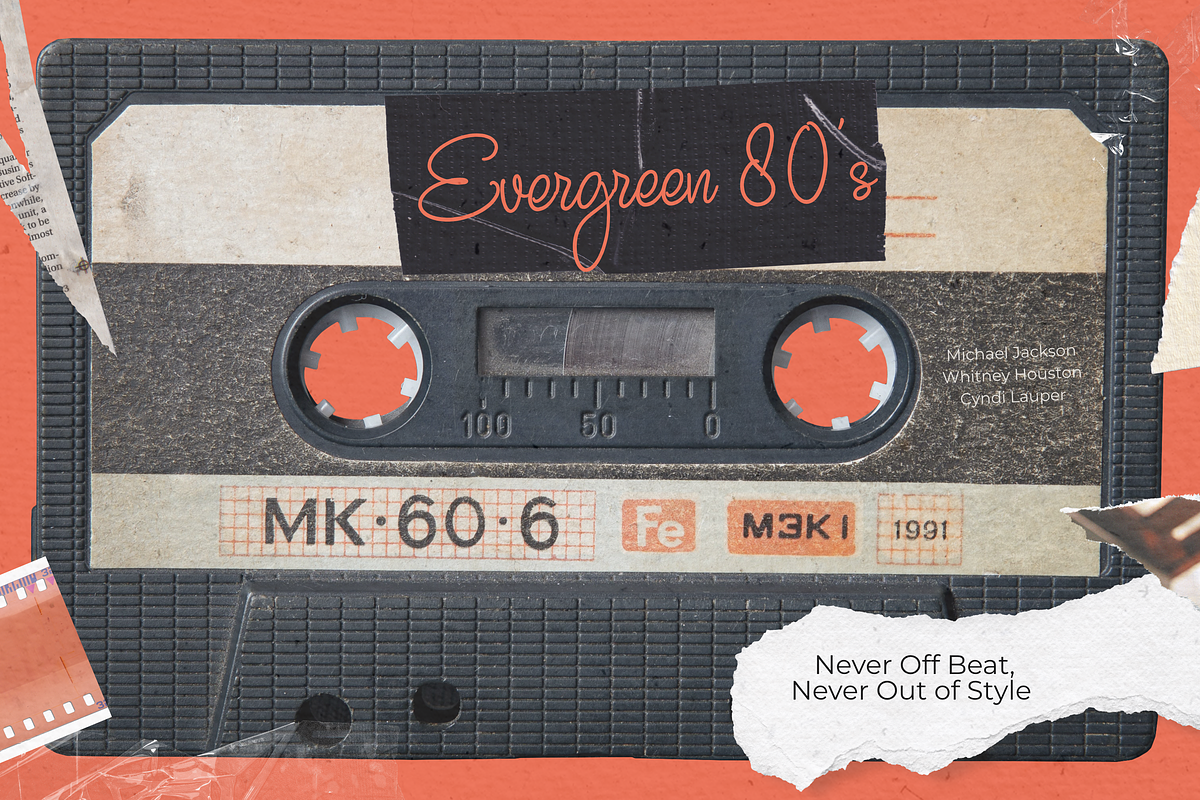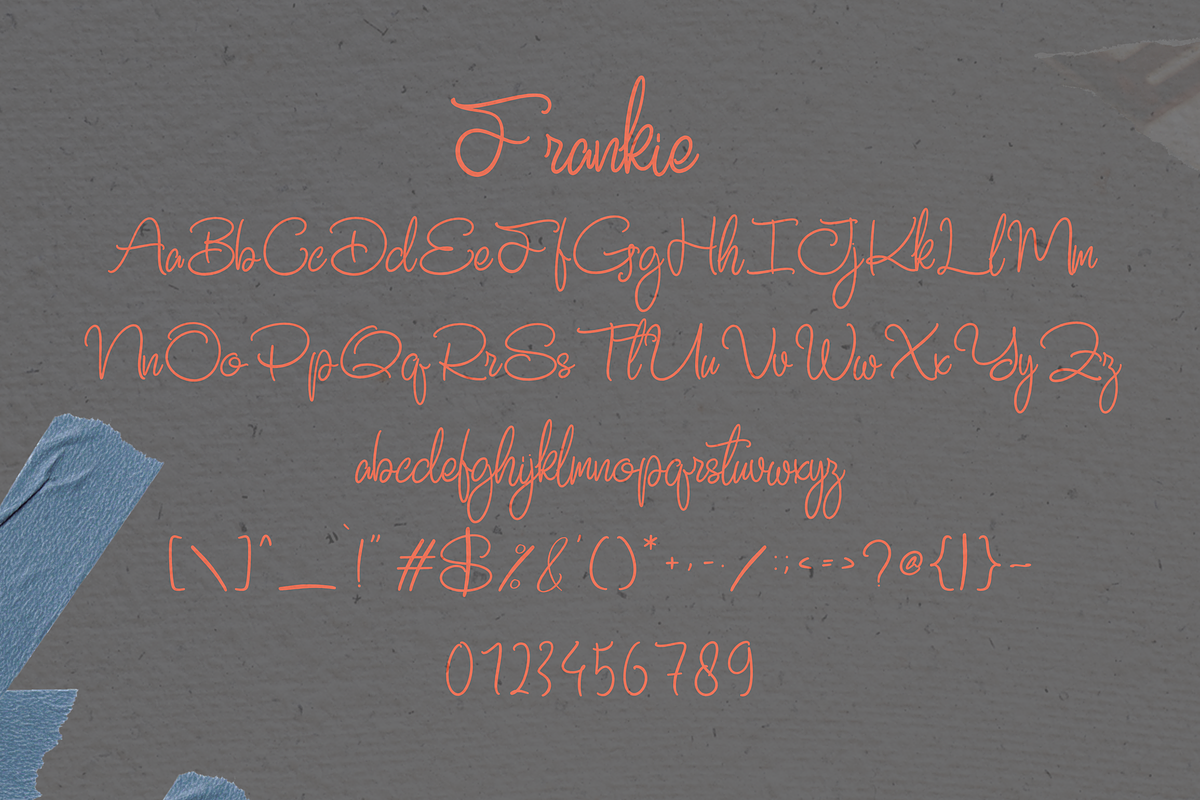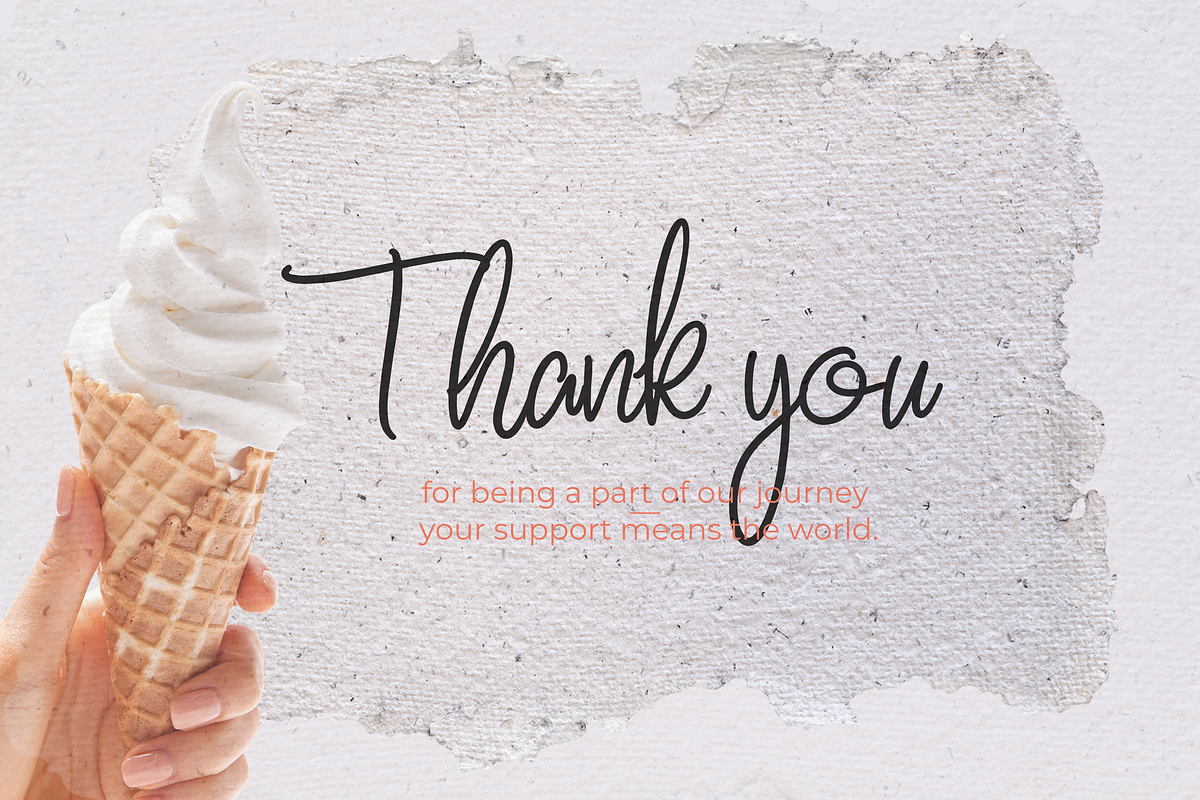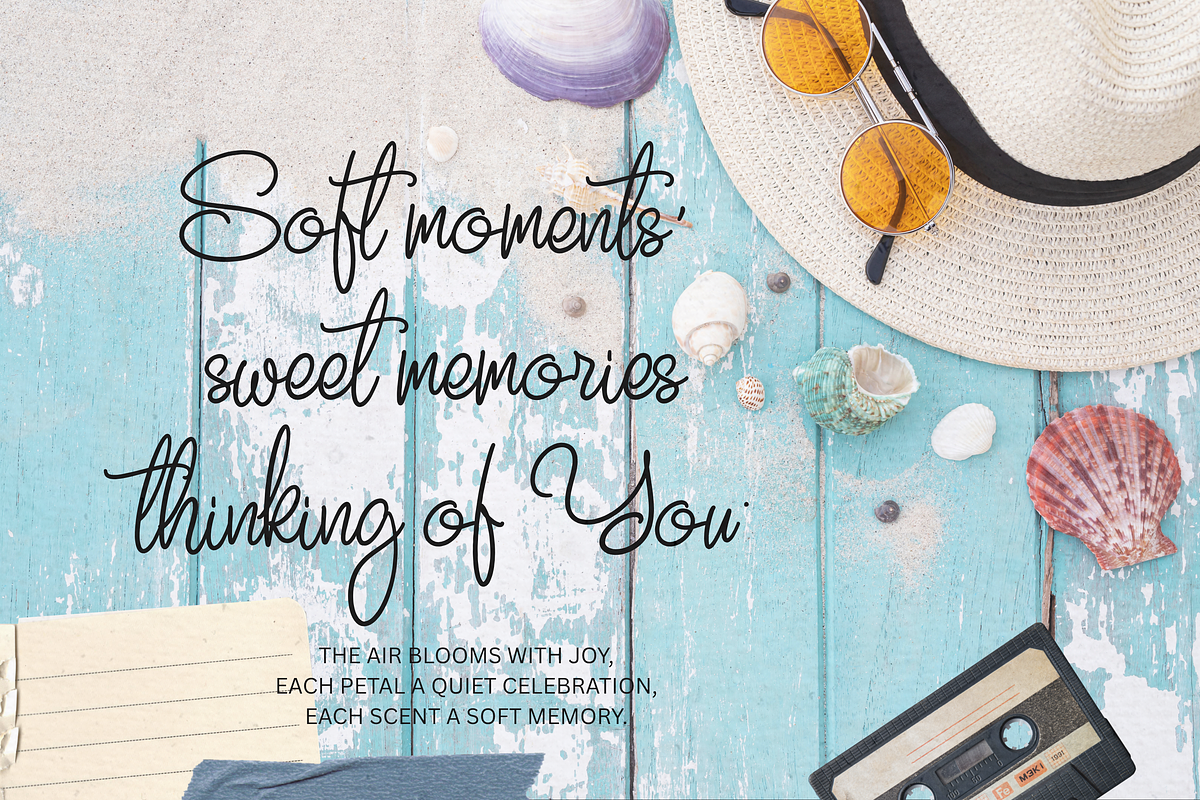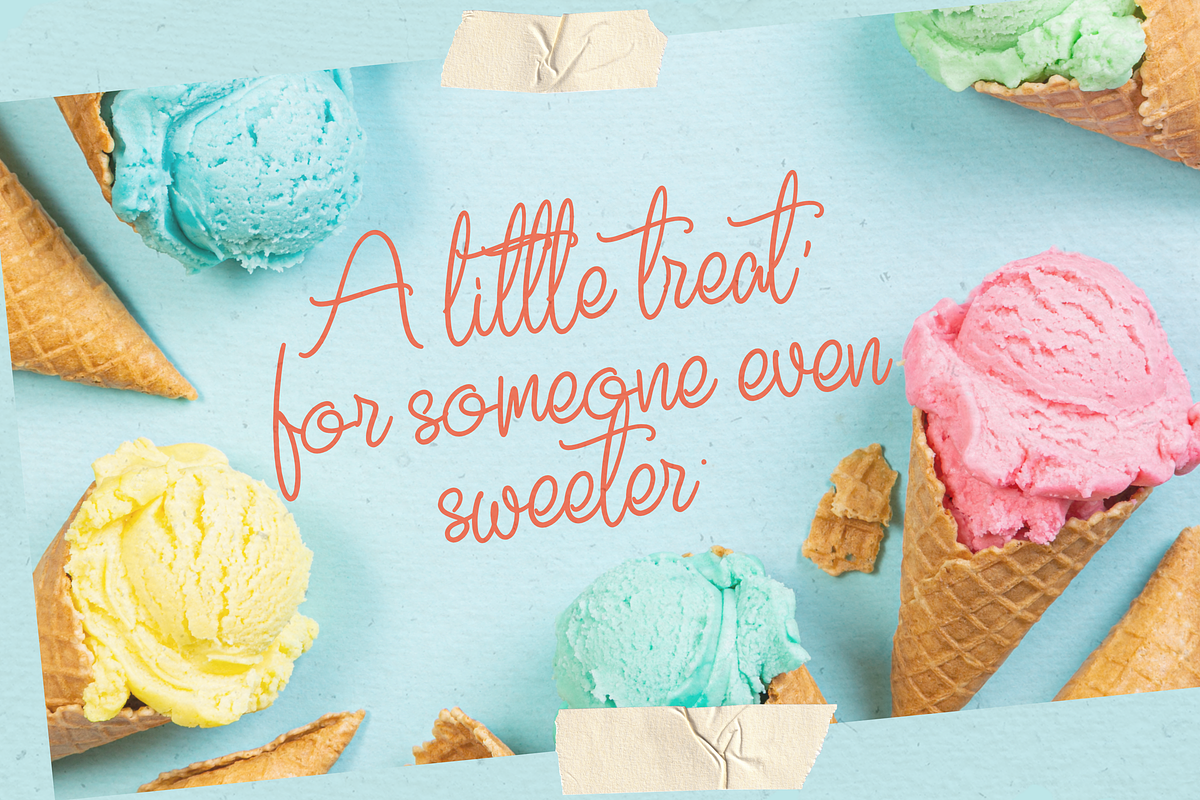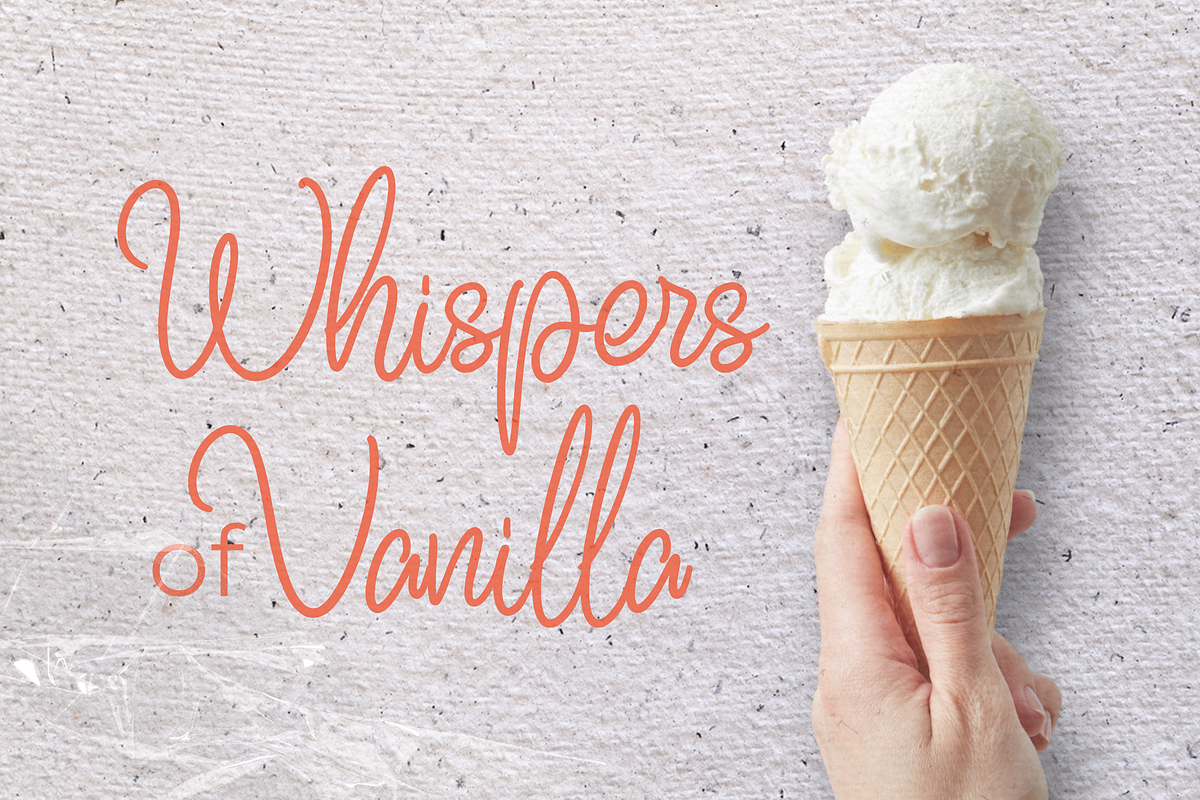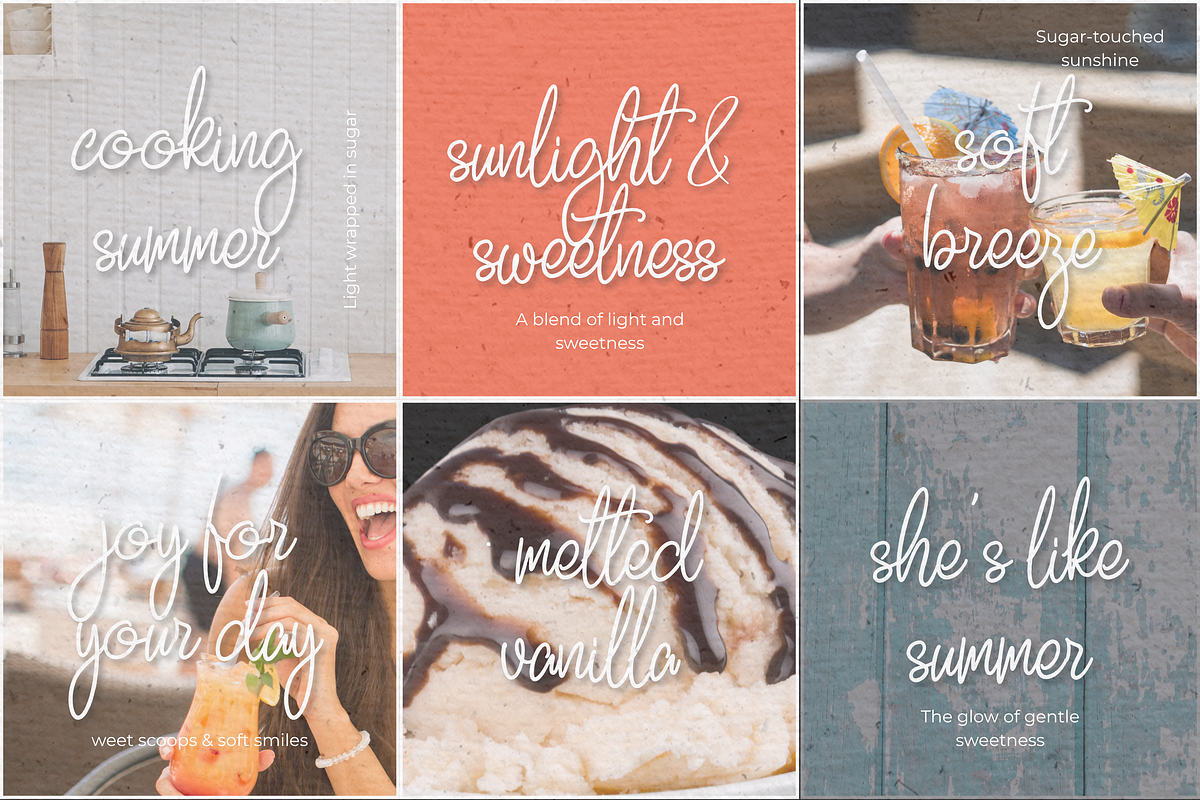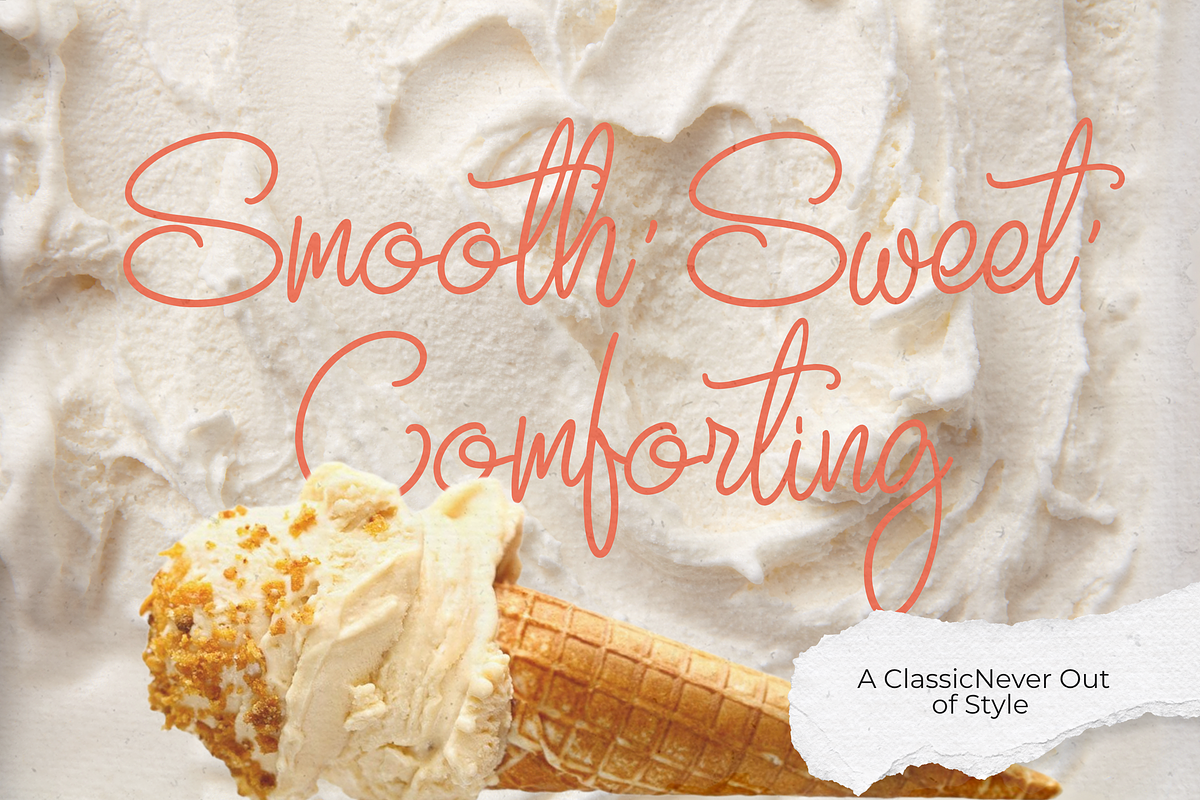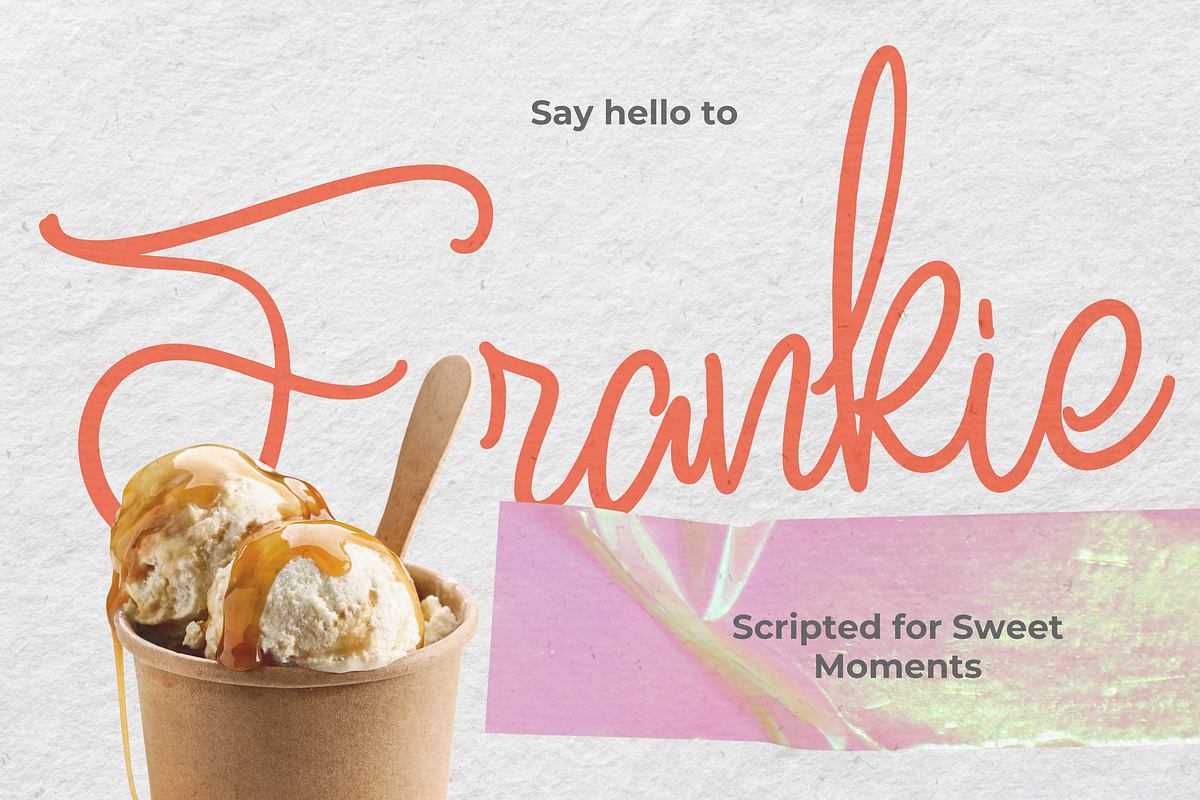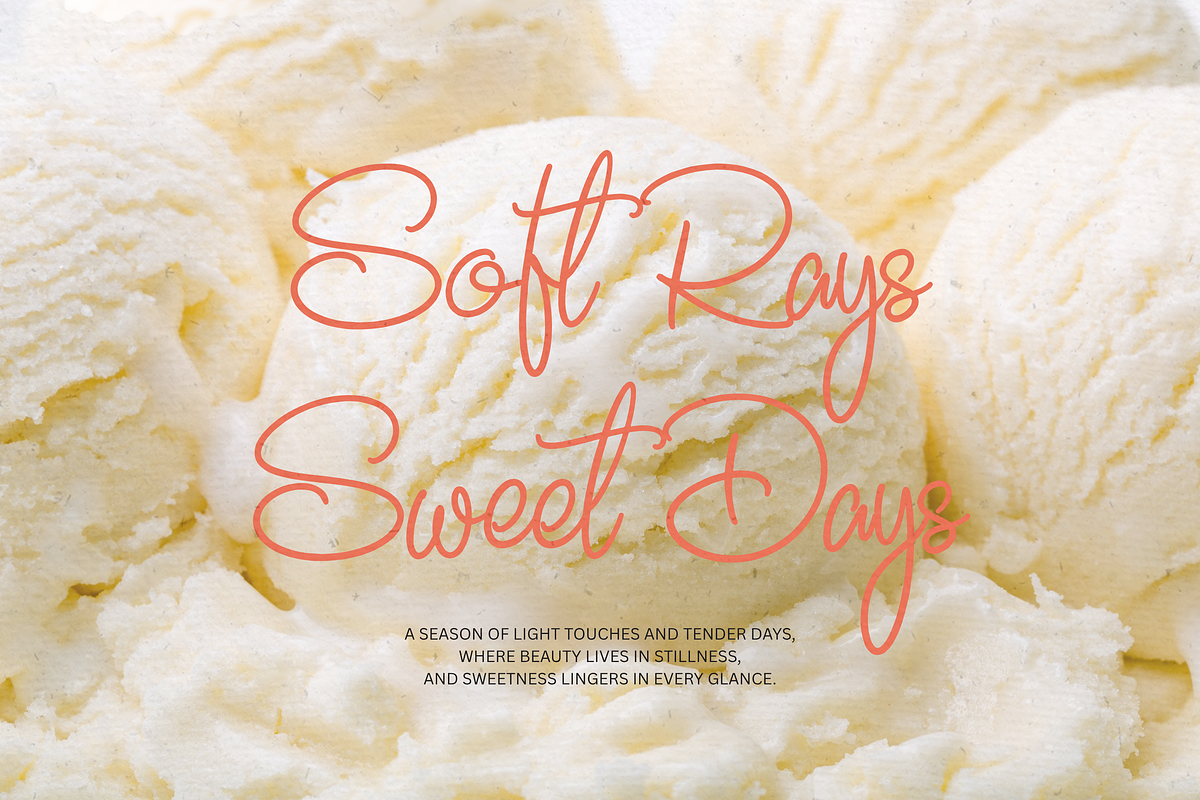
Frankie
Frankie – A Delicate Script Font for Sweet Moments Frankie is a graceful and refined script typeface crafted to bring softness and charm to your designs. With its flowing strokes, smooth curves, and balanced rhythm, Frankie evokes a sense of warmth, sincerity, and timeless elegance — ideal for projects that celebrate love, emotion, and meaningful connections.
Designed for versatility, Frankie shines in wedding stationery, baby announcements, feminine branding, packaging, and heartfelt social media graphics. Its gentle character pairs beautifully with serif or sans-serif companions, making it a reliable choice for both print and digital use.